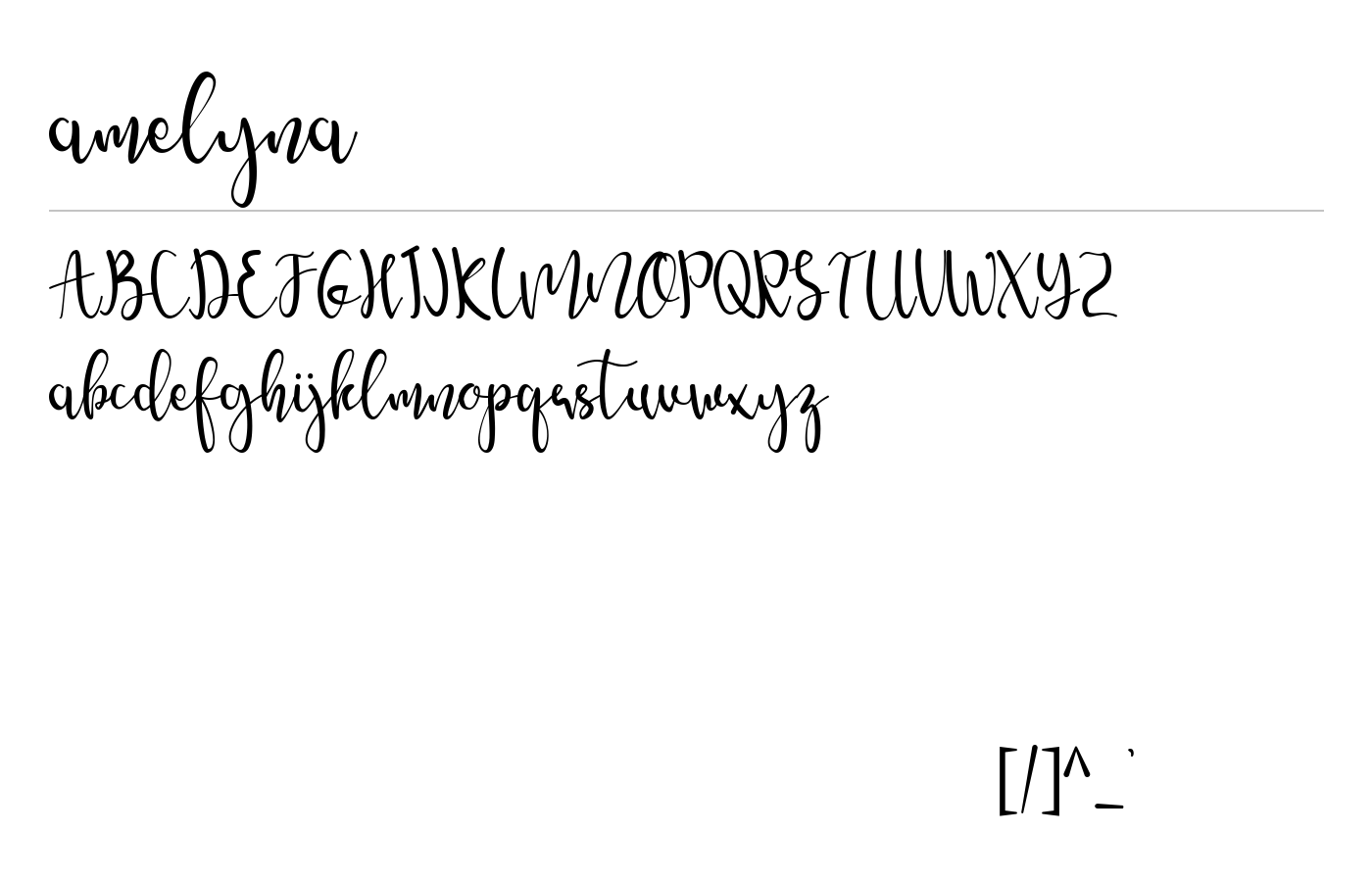
Amelyna is a charming script font with a handwritten feel, featuring smooth, flowing strokes and elegant loops that bring a playful yet refined character. Its light weight and airy spacing make it perfect for personal branding, invitations, and creative projects where a touch of warmth and friendliness is desired. Ideal for headlines and decorative text, Amelyna adds a graceful, approachable style that works well in both modern and casual contexts.
amelyna Font
About amelyna Font
| Font family | amelyna Font |
| Designer | Muksal Creative. 2019 |